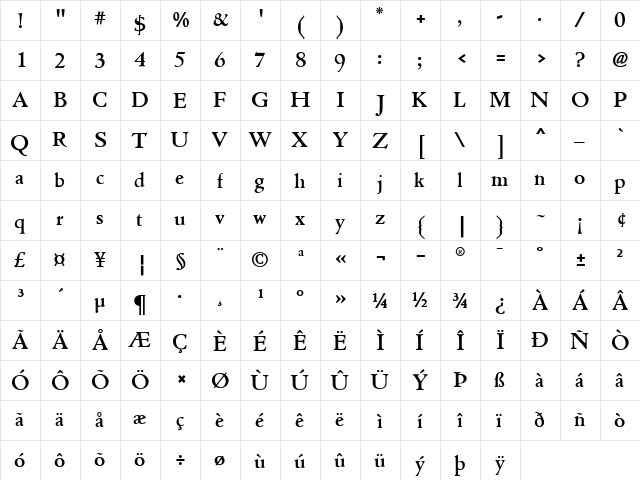
NicolasJensonSG Regular
NicolasJensonSG is a composed and adaptable typeface that performs quietly and consistently across a wide range of design contexts.